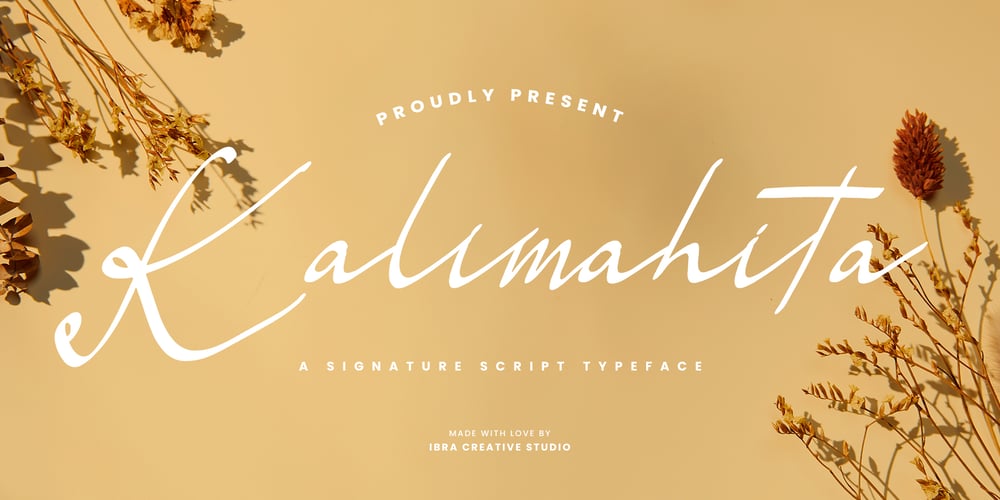
Kalimahita Font Family was designed by Roisatul Azizah and published by IbraCreative. Kalimahita contains 1 styles and family package options. Kalimahita – A Signature Script TypefaceKalimahita, an exquisite signature script typeface, epitomizes elegance and individuality. Its graceful and fluid strokes convey a sense of personal expression, making it a perfect choice for those seeking a distinctive and sophisticated signature style. The meticulously crafted letterforms exhibit a harmonious balance between smooth curves and dynamic flourishes, embodying a timeless quality that effortlessly blends tradition with modernity. Kalimahita is designed to lend a touch of refinement to a variety of creative projects, from branding and logo design to invitations and personal correspondence. With its captivating aesthetic, this signature script typeface adds a personalized and luxurious touch to any endeavor, making it a standout choice for those who appreciate the artistry of a well-crafted signature.Kalimahita is perfect for branding projects, logo, wedding designs, social media posts, advertisements, product packaging, product designs, label, photography, watermark, invitation, stationery, game, fashion and any projects.Fonts include multilingual support for; Afrikaans, Albanian, Czech, Danish, Dutch, English, Estonian, Finnish, French, German, Hungarian, Italian, Latvian, Lithuanian, Norwegian, Polish, Portuguese, Slovak, Slovenian, Spanish, Swedish.